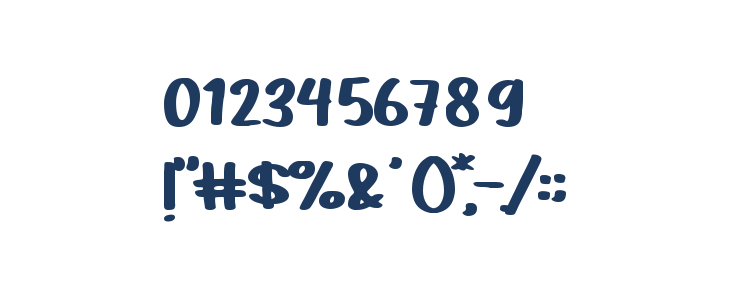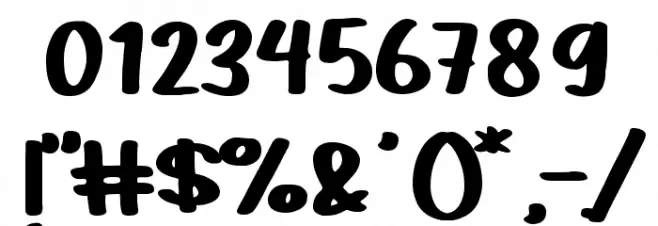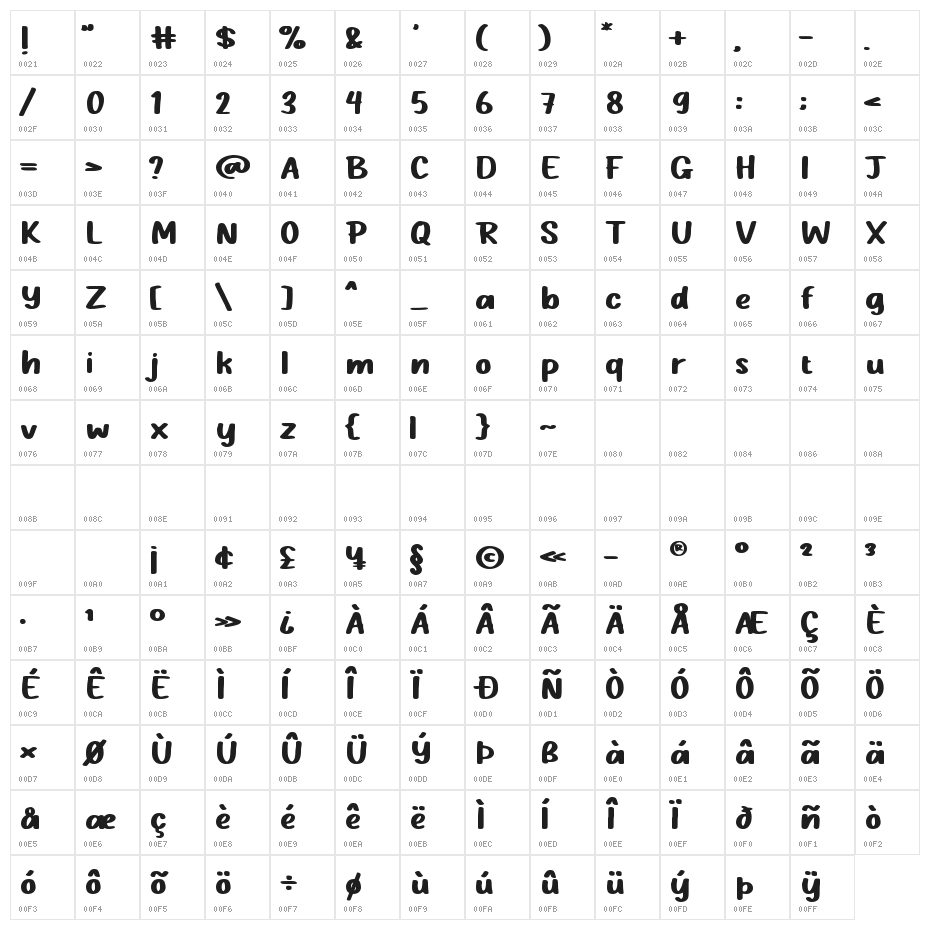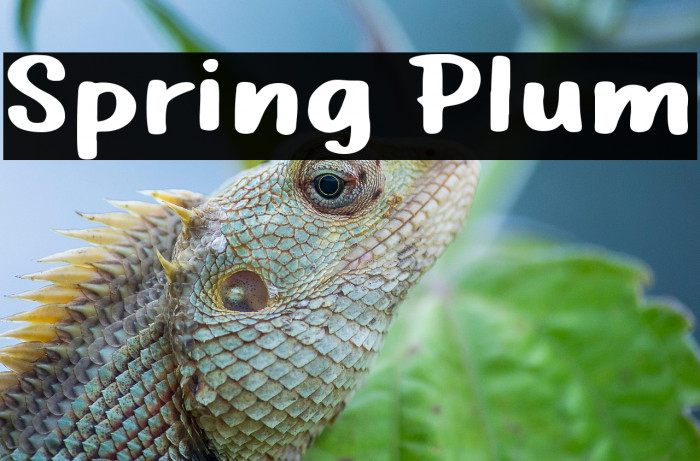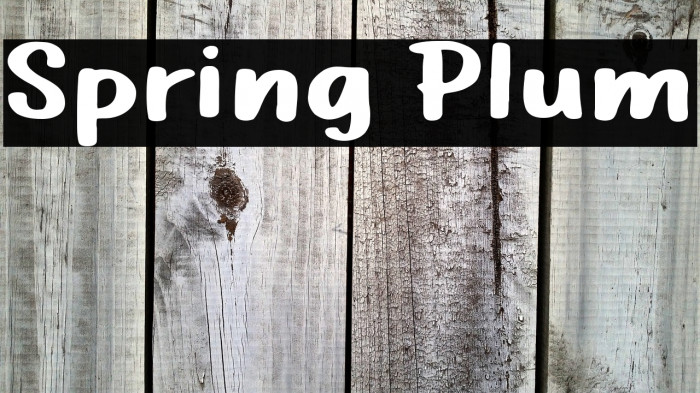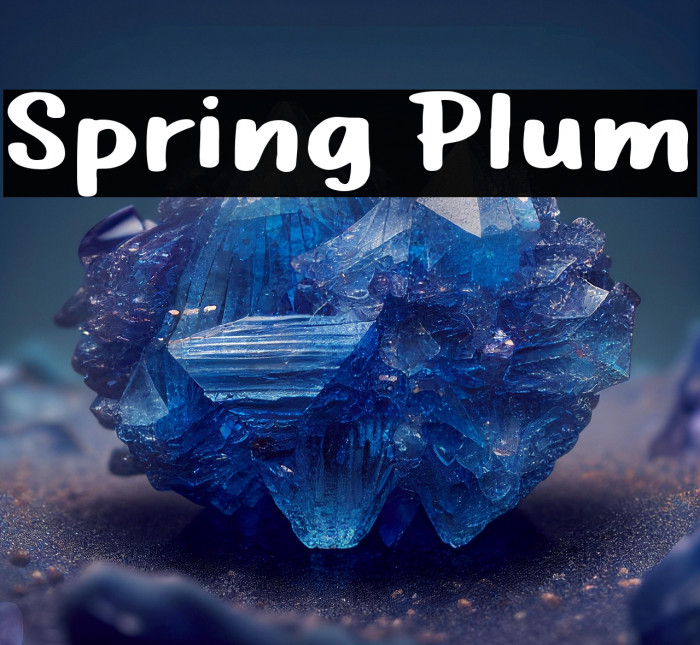
Spring Plum Font
Spring Plum Description
This playful and bold font features a handwritten style with rounded edges and a casual, friendly appearance. The letters are slightly irregular, adding a whimsical touch that makes it stand out. The uppercase and lowercase characters maintain a consistent style, with a smooth flow and a sense of movement. The numbers and special characters are equally expressive, fitting seamlessly with the overall design. This font exudes a sense of fun and creativity, making it ideal for projects that require a personal and approachable feel.
| Proposed Projects | Great for children's books, playful branding, greeting cards, and creative posters. |